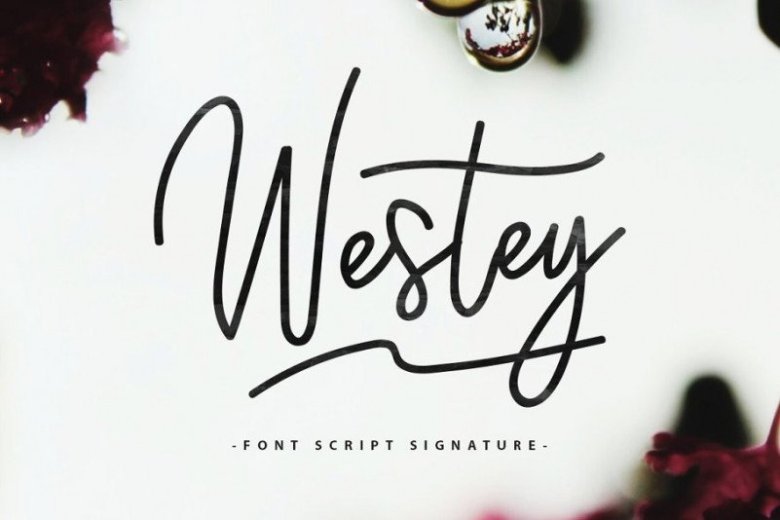
Westey Signature Font
Westey is font script signature. Westey a beautiful for wedding card design, logotype, website header, fashion design and any more. Westey come with 73 Glyph alternates and 63 Swash Characters.
It contains a full set of lower & uppercase letters, a large range of punctuation, numerals, and multilingual support.